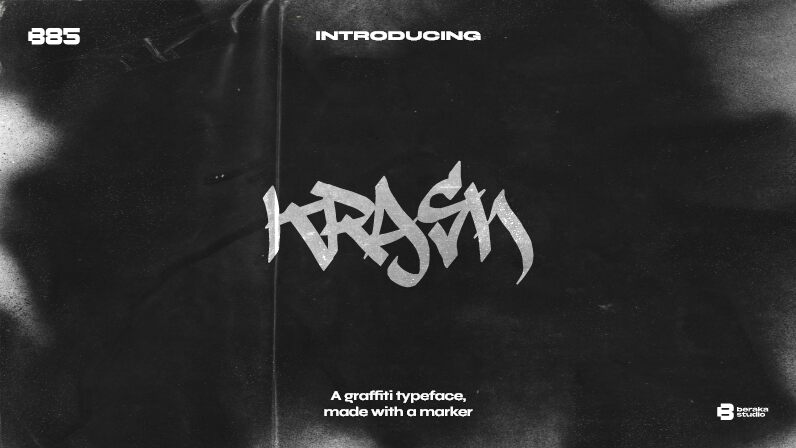
Krash font is a graffiti typeface designed by B85 with angular and aggressive strokes. Distinctive and with a contemporary vibe, this urban free font combines the bold appearance of marker-made typography with graffiti inspiration. Despite its formality, Krash enjoys a sassy character and an energetic flair that can be noticed whenever it is used.
Use Krash in packaging designs, product labels, toys branding, comic style posters, video game design elements and covers, entertainment-related projects, t-shirts designs, movie posters especially animated ones (where adults voice the young chirpy characters), journal or sketchbook titles just diary-like writing they want to keep secret!